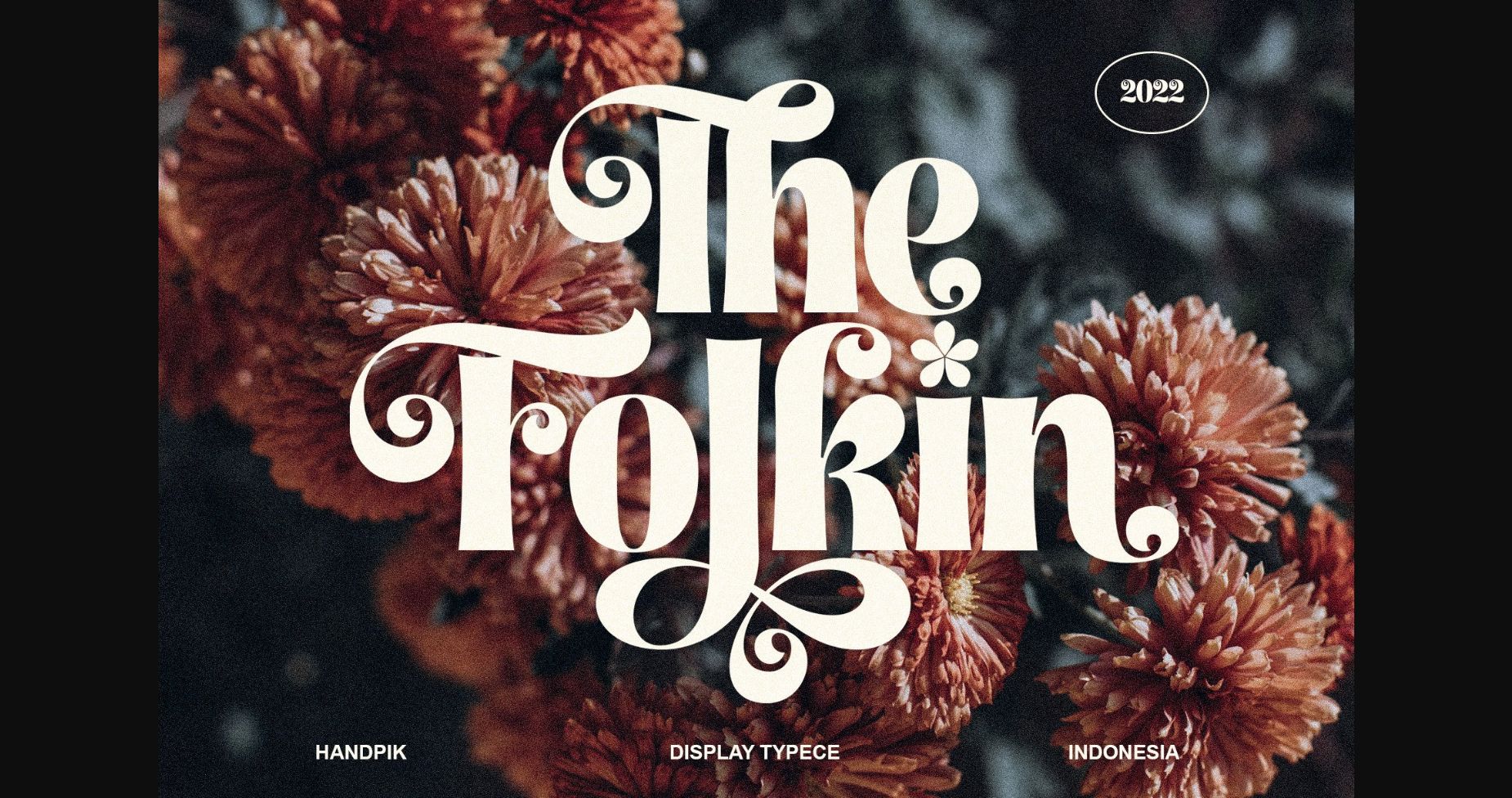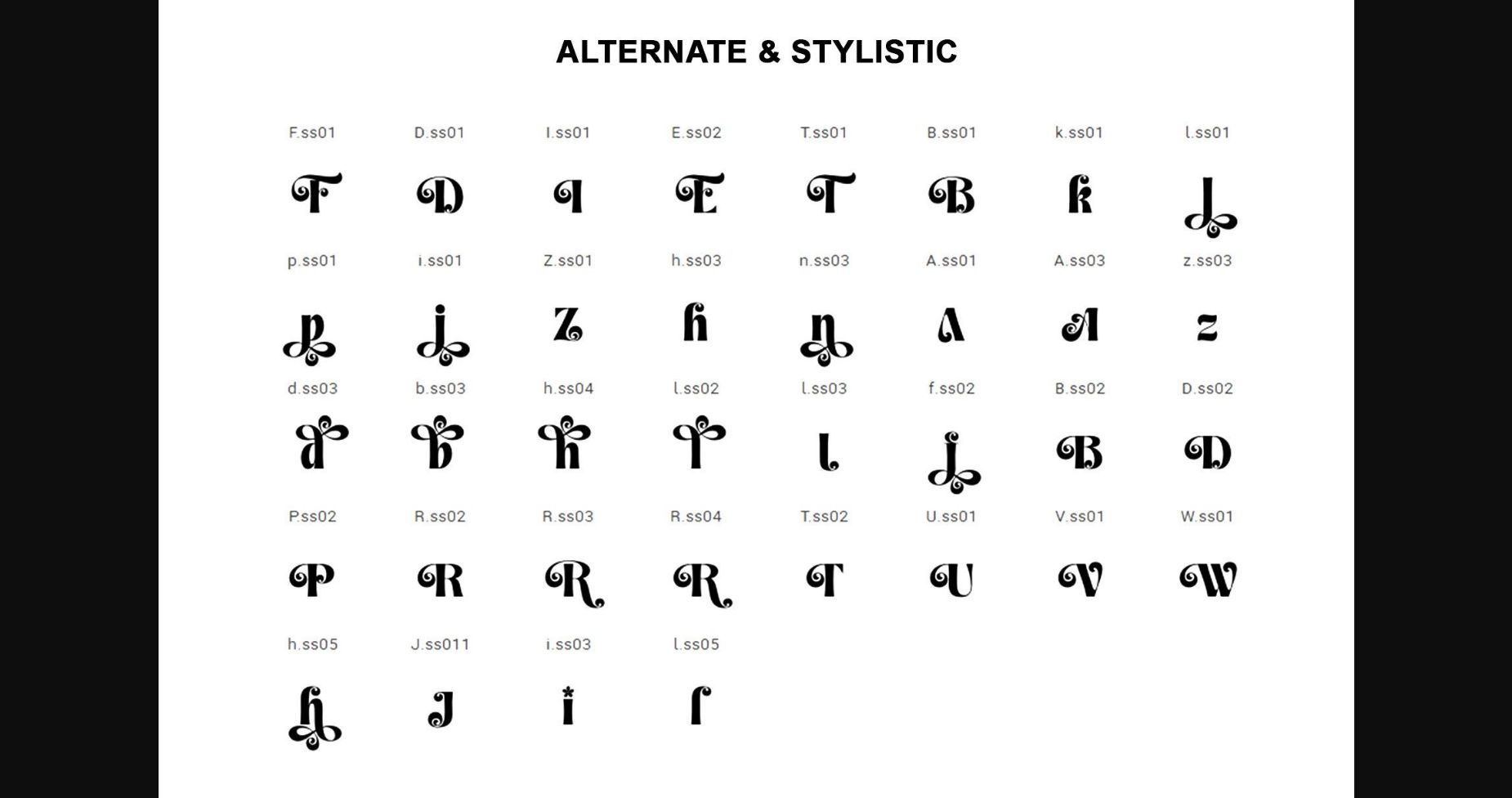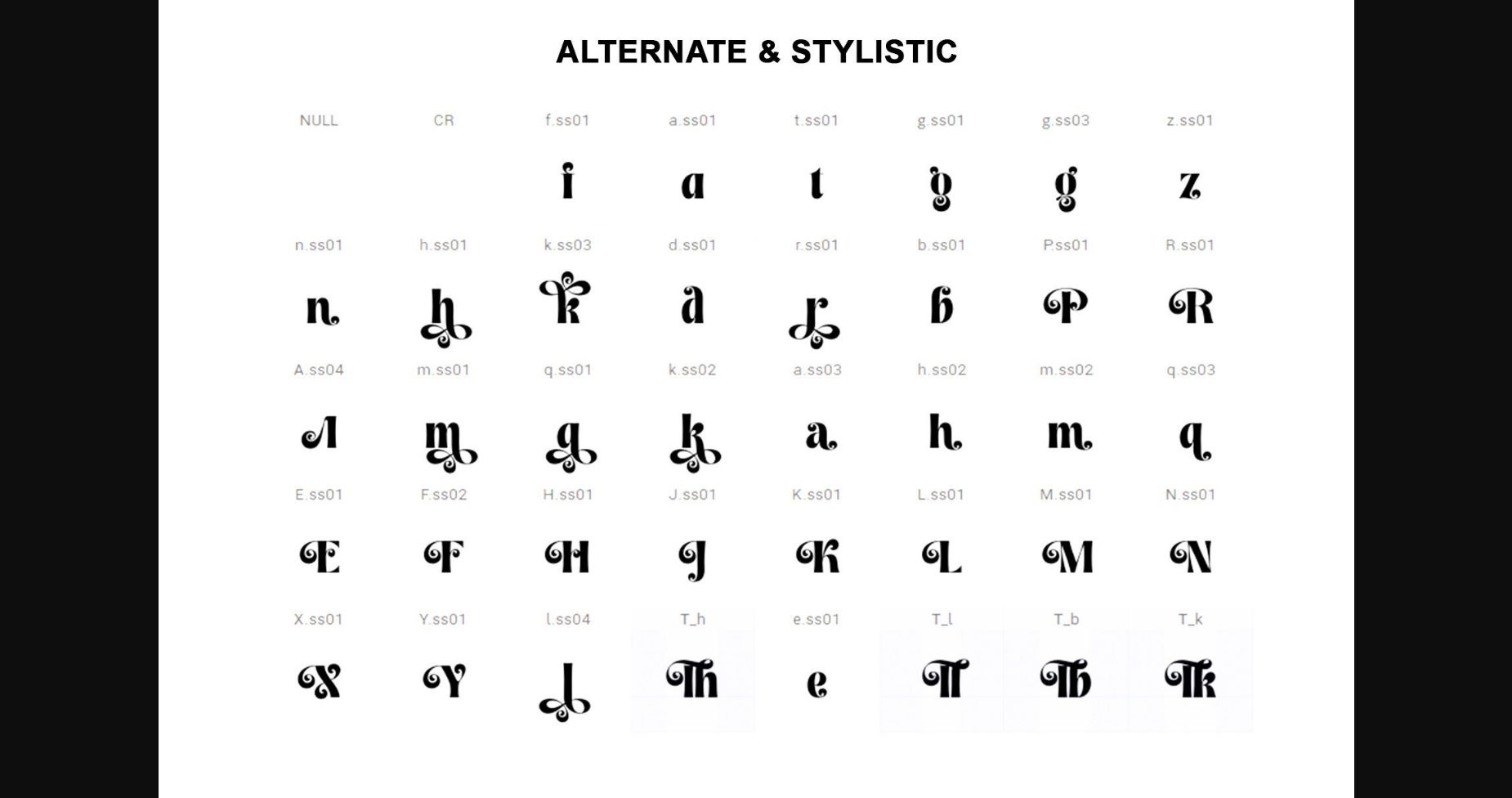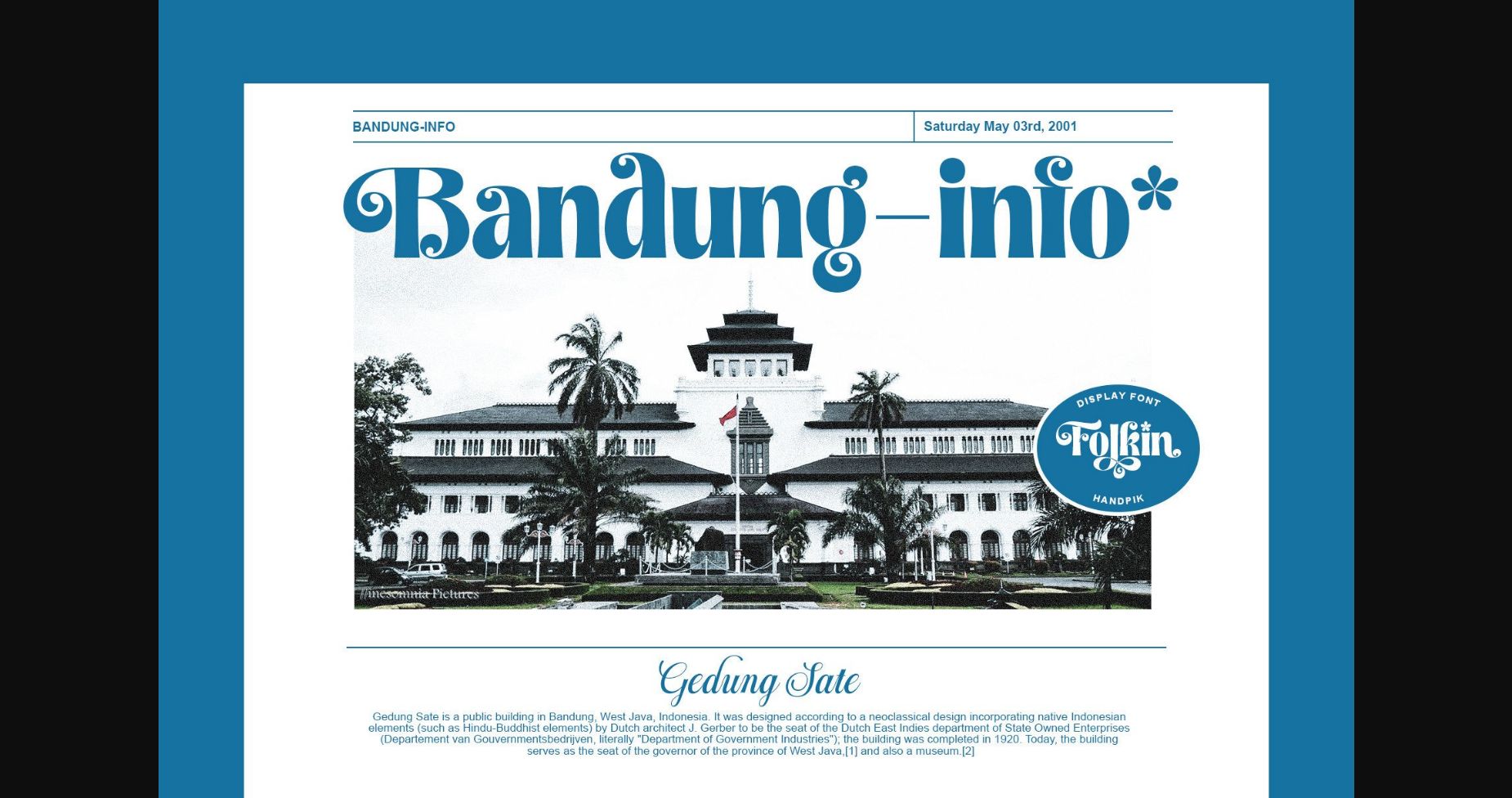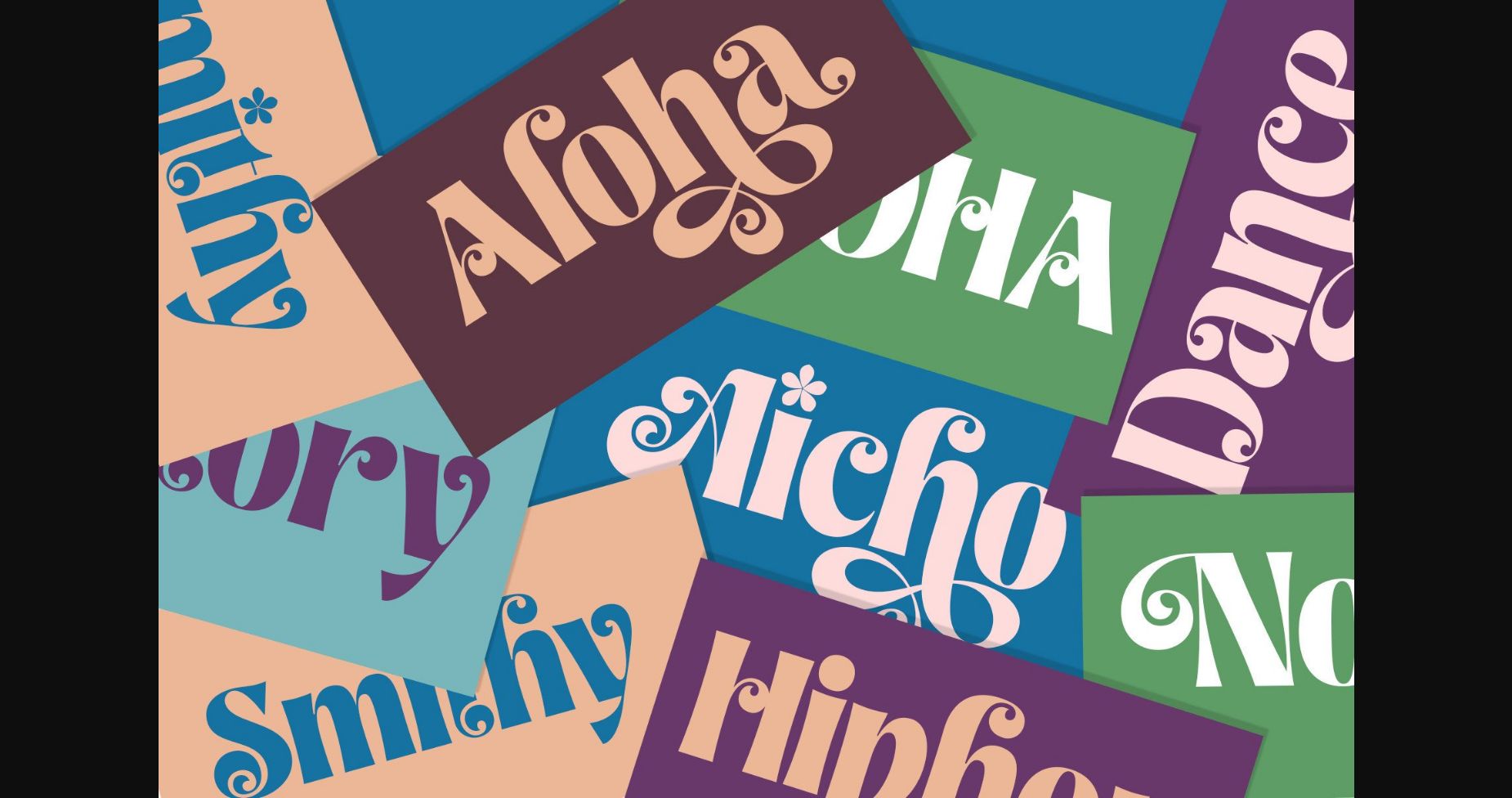
About Folkin Font
Folkin is a serif display font that has a classic, feminine and elegant style. Masterfully designed to become a true favorite, this font has the potential to bring each of your creative ideas to the highest level!